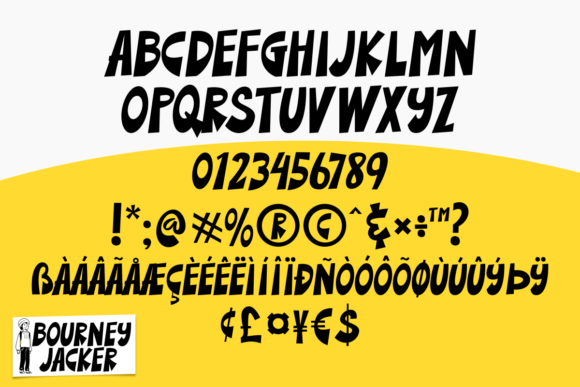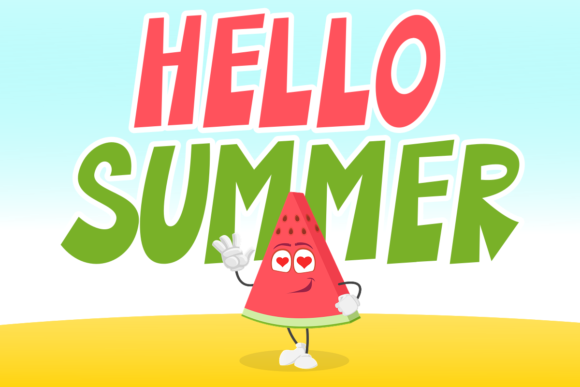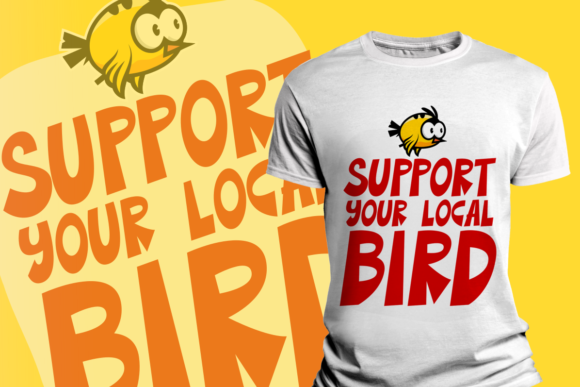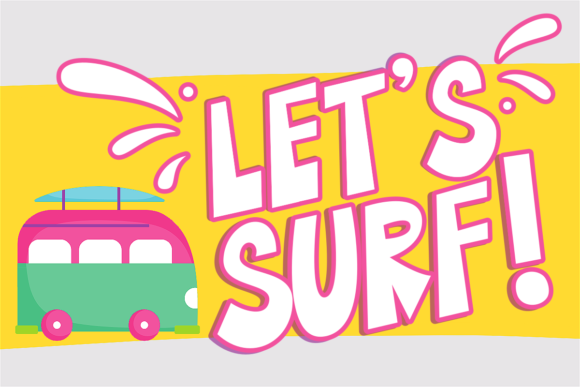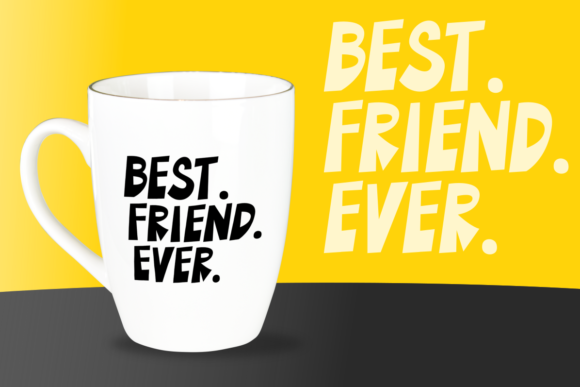
The Perfect Pairing: How Bourney Jacker Font Brings Authenticity to Your DIY Projects
Have you ever been working on a DIY project, pouring your heart and soul into it, only to realize that it’s missing that special something? For many creatives, this moment is a turning point – a moment when inspiration strikes, and the perfect solution appears. For me, it was the discovery of the Bourney Jacker Font, a stunning pairing of a brush pen and pencil that makes it look incredibly endearing and authentic.
Bourney Jacker Font is a unique display font designed to bring a personal touch to any DIY project. Its beautiful, handwritten style is perfect for adding a human element to your designs, making them feel more approachable and relatable. As a designer, you know how valuable it is to have a font that can evoke emotions and connect with your audience. The Bourney Jacker Font is a valuable addition to any designer’s toolkit, offering a fresh and creative way to express yourself.
- Unique Characteristics: This font features a unique, modern design with bold lines, making it ideal for headings and titles. It also has a wide range of language support, including Latin, Cyrillic, and Greek scripts.
Bourney Jacker Font Review
I recently had the chance to work with the Bourney Jacker Font, and I must say it’s a unique addition to any design project. Here are some of my thoughts on what works well and what doesn’t.
- Expressive and Creative – The Bourney Jacker Font has a playful and artistic feel to it, making it perfect for designers looking to add some personality to their work.
- Wide Range of Applications – This font can be used in a variety of projects, from logos and branding to typography and editorial design.
- Easy to Read – Despite its creative and unique design, the font remains easy to read and understand, even at smaller font sizes.
- Not Ideal for Formal or Professional Projects – The Bourney Jacker Font’s playful nature may not be suitable for formal or professional projects, where a more conservative and traditional font is preferred.
- Limited Font Sizes – While the font is easy to read at smaller sizes, it may not be as effective at larger font sizes, where it can appear less refined.
Overall, I think the Bourney Jacker Font is a great addition to any designer’s toolkit, but it’s essential to consider the context and purpose of your project before choosing this font. With its unique and creative design, it’s perfect for projects that require a playful and artistic touch.
Tips for Getting the Most Out of the Bourney Jacker Font
1. Experiment with different font sizes and styles to achieve the desired effect.
2. Pair the Bourney Jacker Font with other fonts to create a unique and visually appealing design.
3. Use the Bourney Jacker Font to add a touch of elegance and sophistication to your designs.
Alternatives to Bourney Jacker Font
Playfair Display is an elegant and luxurious serif font perfect for use in high-end branding, luxury products, and classic designs. It features a mix of serif and script elements that give it a sophisticated feel. When to use: Luxury branding, high-end products, classic designs.
Comparison to Bourney Jacker Font: While Bourney Jacker Font has a more modern feel, Playfair Display Font offers a more traditional and classic look. Playfair Display Font is ideal for those seeking a more timeless and sophisticated aesthetic.